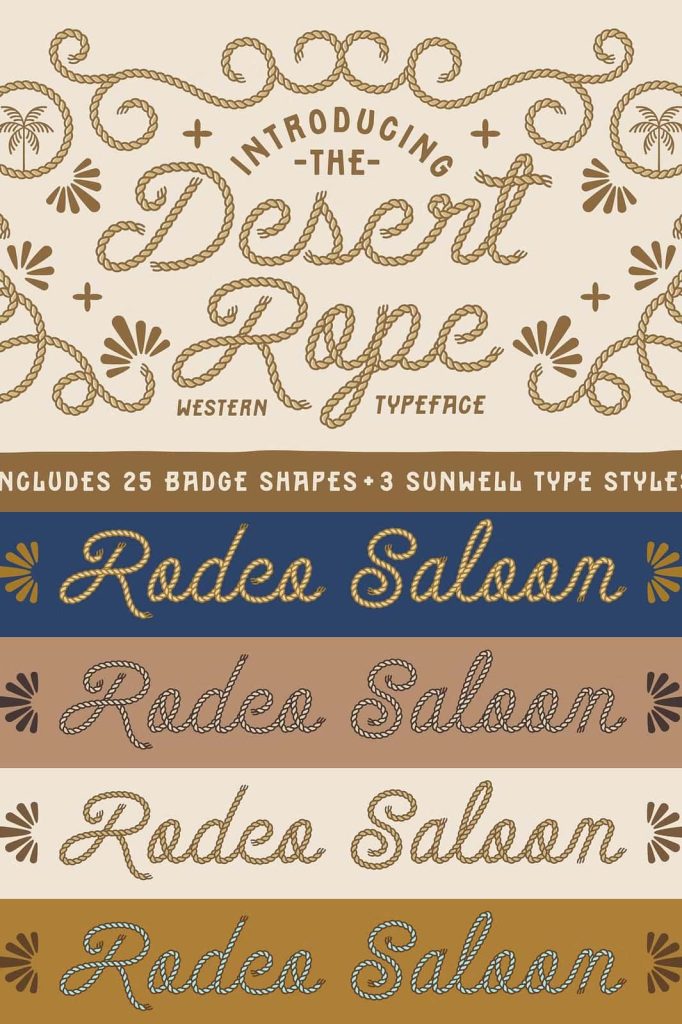
Desert Rope Typeface: A Vintage Western Script Font for Dynamic Creative Projects
The Desert Rope Typeface brings an energetic fusion of vintage western charm and handcrafted script artistry. Inspired by the loose twirls and fluid movements of a cowboy’s lasso, this typeface delivers an authentic rustic personality that instantly elevates any design work. Whether you aim to create bold branding, expressive posters, or thematic packaging, Desert Rope brings a distinctive visual power that demands attention. Its handcrafted details, versatile character sets, and natural flow make it a remarkable addition to any designer’s collection.
Embrace the Authentic Western Aesthetic
Desert Rope draws directly from the visual language of the American West. The curves, loops, and sweeping strokes mimic the motion of a rope swirling through the air. This dynamic motion brings life to each letter, making the typeface ideal for projects that need a rugged, adventurous, or historical feel. Designers who want to highlight adventure, tradition, or Americana aesthetics will appreciate the authentic energy this typeface introduces into their visuals. The western style feels genuine, not fabricated, ensuring your text appears grounded in that rich cultural identity.
A Script Font with Movement and Personality
Unlike many script fonts that strive only for elegance, the Desert Rope Typeface embraces bold personality and expressive motion. The letters connect organically, creating a natural handwritten rhythm that enhances readability while retaining a powerful visual identity. This movement makes the typeface suitable for large display text such as logos, signage, posters, book covers, and advertisements. Its bold strokes allow your message to stand out even from a distance, ensuring a strong visual impact.
Extensive Alternates and Ligatures for Creative Flexibility
A major strength of the Desert Rope Typeface is its wide selection of character alternates and ligatures. These features allow you to customize letters and craft a tailored typographic composition. With multiple variations for key characters, you can adjust the mood, rhythm, and style of your design with ease. The alternates introduce subtle differences in curves and loops, helping you build a more personalized and expressive text layout. Ligatures provide seamless connections between letters, enhancing the font’s natural rope-like flow and giving your design a cohesive handcrafted look.
Perfect for Branding and Logo Design
If you are developing a brand that needs a strong personality, Desert Rope offers exceptional versatility. Its bold script style transforms logos into memorable design assets. Western-themed businesses such as ranches, barbeque restaurants, craft breweries, outdoor gear shops, and vintage boutiques can use this typeface to strengthen their identity. Even modern brands can integrate Desert Rope to add a nostalgic touch or a sense of exploration.
Ideal for Posters, Packaging, and Merchandise
Designers often look for typefaces that can adapt to numerous creative settings, and Desert Rope excels in this area. You can apply it to posters that require bold titles, packaging designs that need rustic flair, merchandise artwork, event graphics, social media banners, and thematic campaigns. Because of its strong visual character, the font instantly transforms ordinary layouts into striking, story-rich designs. It works exceptionally well in retro or vintage-inspired settings, but it can also enhance contemporary layouts that need bold contrast and expressive movement.
A Typeface That Inspires Creative Storytelling
Every stroke of the Desert Rope Typeface reflects a story rooted in adventure, craftsmanship, and movement. Designers who want to create visually engaging narratives will find that this typeface naturally enhances the storytelling aspect of their projects. The rope-inspired loops and curves evoke a sense of freedom, exploration, and timeless charm. By using Desert Rope, you can shape a visual identity that communicates both emotion and creativity.
The Desert Rope Typeface stands as a dynamic and authentic script font inspired by the fluid motion of a lasso. With its extensive alternates, ligatures, and handcrafted western aesthetic, this typeface brings a bold and vintage charm to logos, posters, branding, packaging, and many other creative projects. If you want to add personality, movement, and a memorable western vibe to your work, Desert Rope offers the perfect typographic solution.